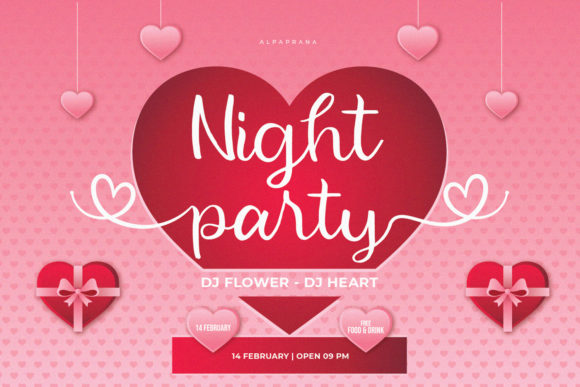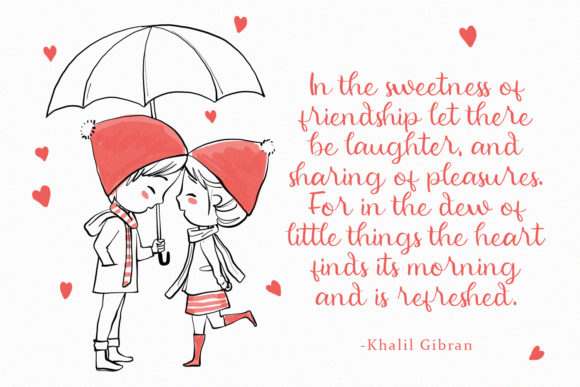
Beauty Hearts Font
db-ku.com - Script & Handwritten -- Beauty Hearts is a stunning and cute handwritten font with an authentic feel. It will be perfectly used for branding, logo Designs, clothing, posters and much more.